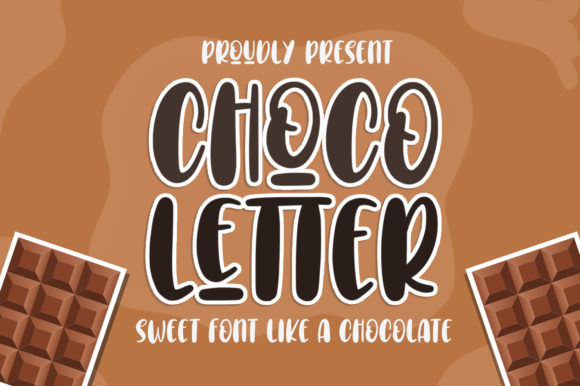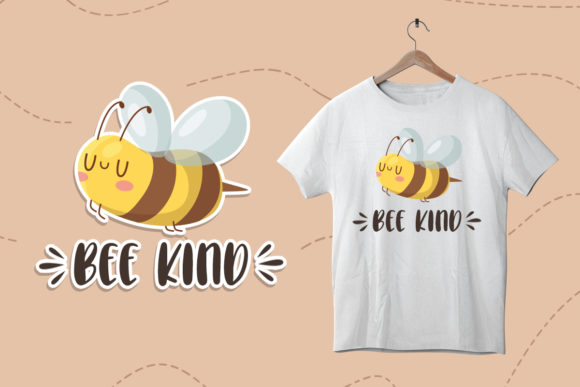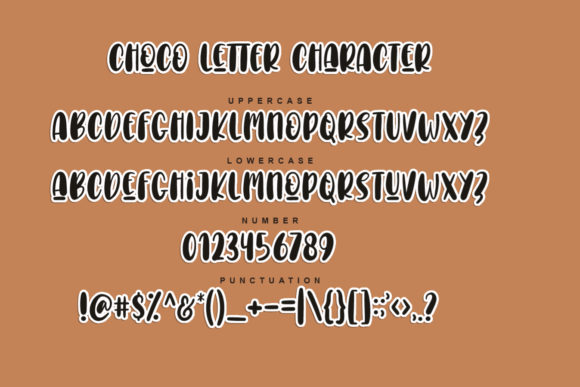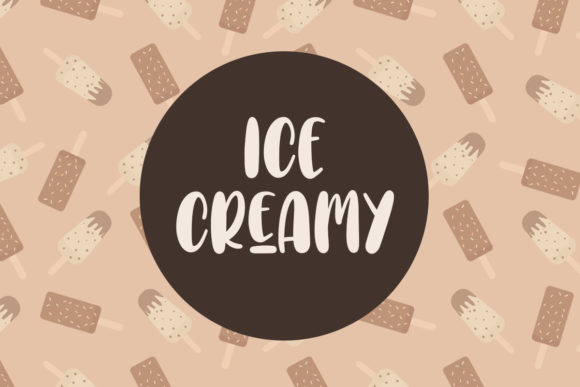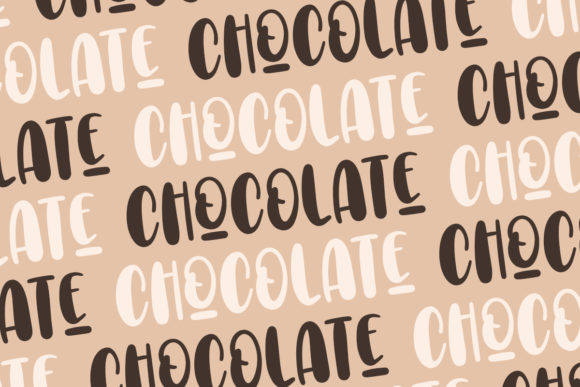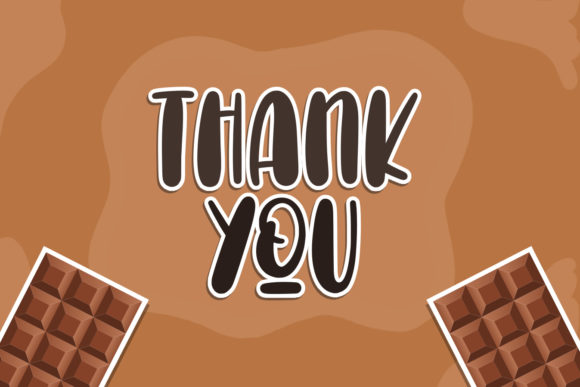
Choco Letter Font
About Choco Letter Font
Choco Letter is a sweet handwritten font. It features an incredibly classic style, while still keeping a friendly feel. Choco Letter is the perfect font for making original and outstanding designs.